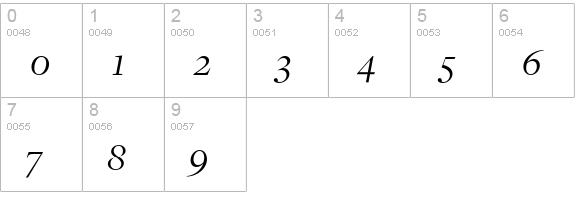
FreightDispBookItalic Font Details
FreightDispBookItalic is a stylish and elegant font that exudes professionalism and sophistication. Its italicized design adds a touch of flair to any text, making it perfect for use in various design projects. The sleek lines and balanced proportions of FreightDispBookItalic make it a versatile choice for both digital and print media. Best of all, FreightDispBookItalic is available for free download at FontsMarket.com. This means you can easily access this high-quality font to elevate your projects without any cost. Whether you're working on a website, poster, brochure, or any other creative endeavor, FreightDispBookItalic will help you achieve a polished and refined look. Download it today and add a touch of elegance to your designs!